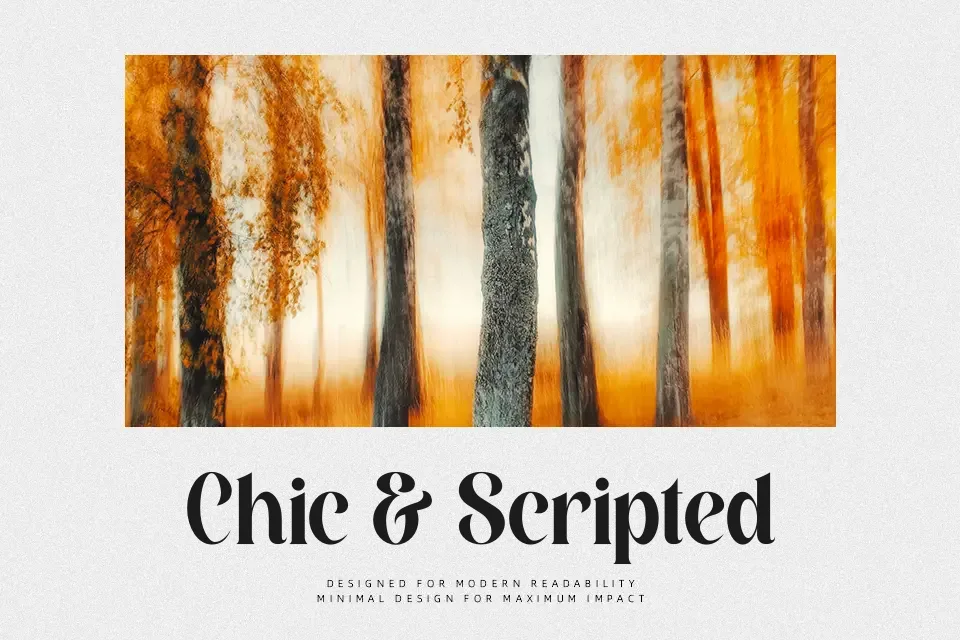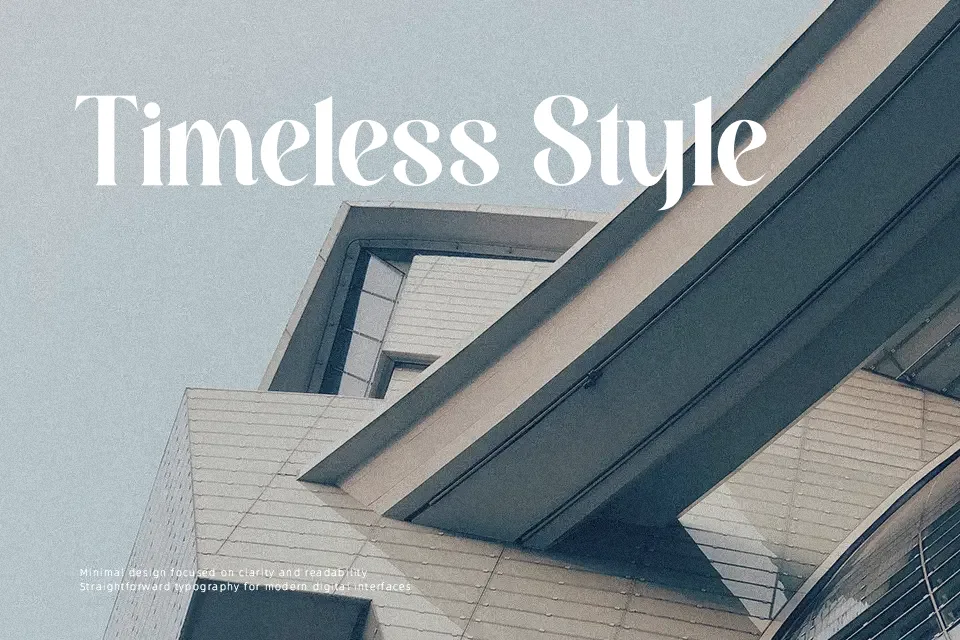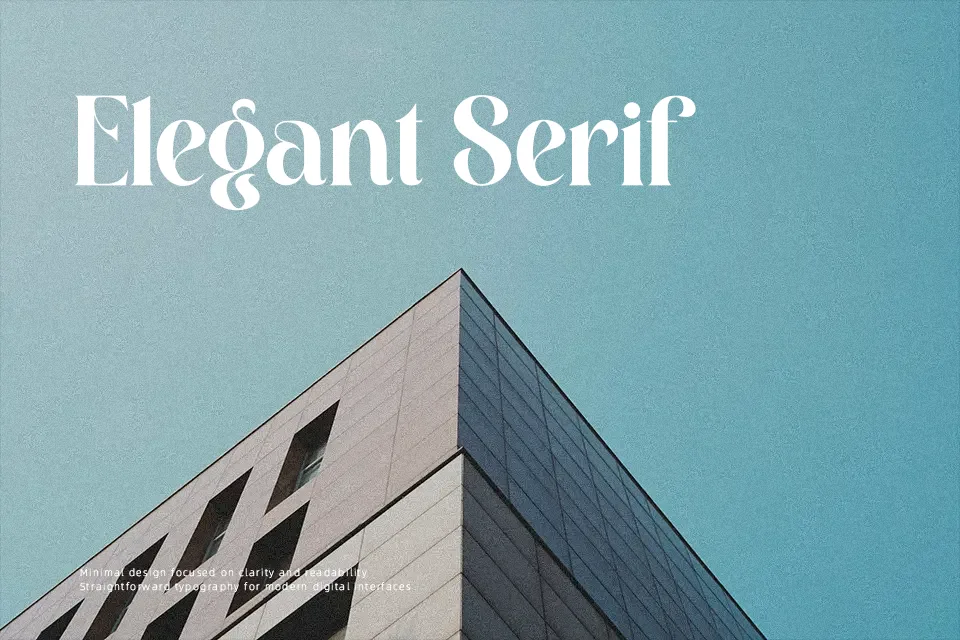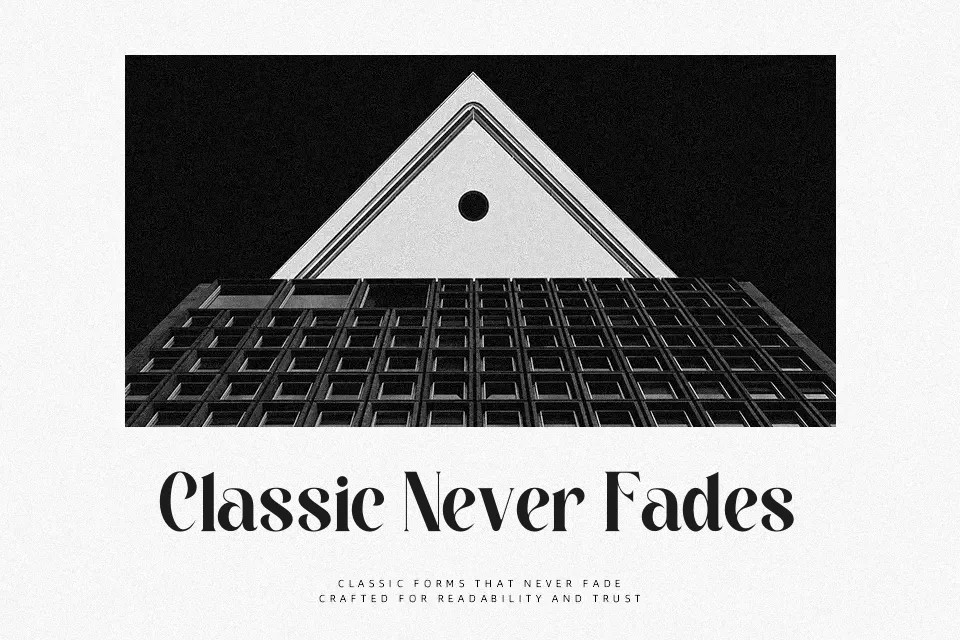
Rosalia Font
When analyzing the letterforms of Rosalia Font, the first noticeable characteristic is its semi-bold serif structure combined with vintage-inspired curves. The typography displays strong strokes and delicate terminals that create a striking visual rhythm. Its balanced spacing and elegant proportions ensure the text remains legible in large formats, making the design particularly effective for luxury branding, editorial headlines, and boutique packaging. The sturdy vertical contrast helps maintain clarity in larger display settings. However, the decorative nature of the serifs becomes less effective at smaller scales. Dense letterforms reduce comfort during extended reading, meaning this typeface is less suitable for long paragraphs, corporate reports, or densely set text.
Best For: Boutique product packaging, fashion magazine headlines, cosmetic branding, vintage cafe menus
Not Ideal For: Long paragraph text, small interface labels, dense editorial layouts, spreadsheet data
Perfect for branding, editorial, and fashion, with a elegant and display style.